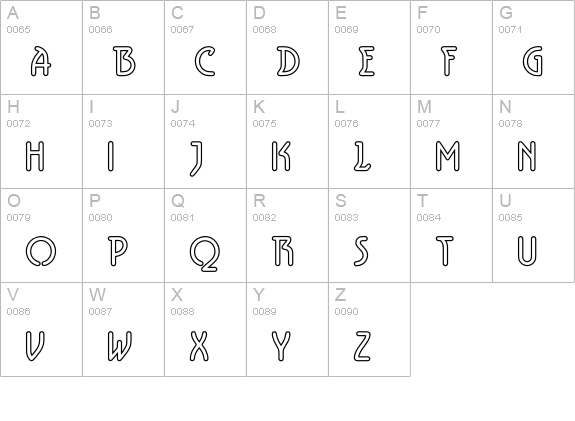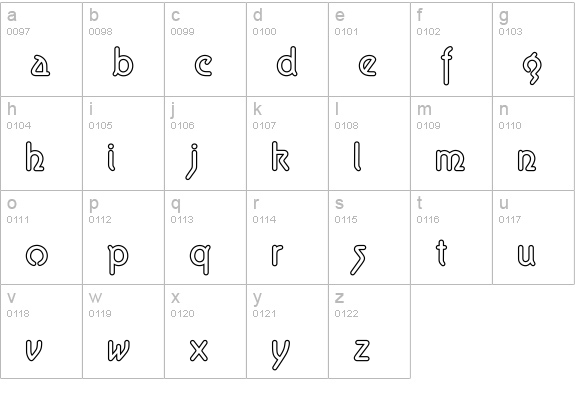
Aerolite Sky font is a captivating and versatile typeface that exudes a sense of elegance and modernity. Its sleek and rounded letterforms make it perfect for a wide range of design projects, from logos and branding to packaging and headlines. With its clean and balanced design, Aerolite Sky font is incredibly easy to read, ensuring that your message will be communicated effectively. Its unique blend of sophistication and simplicity makes it suitable for both professional and creative endeavors. What makes Aerolite Sky font even more enticing is that it is available for free download at FontsMarket.com. This means that you can unleash your creativity without any financial constraints. Whether you're a seasoned designer or just starting out, Aerolite Sky font is a valuable addition to your font library. The versatility of Aerolite Sky font shines through in its extensive character set, allowing you to effortlessly express your ideas in various languages and styles. Its smooth curves and precise detailing create a harmonious visual experience, making your designs stand out from the crowd. Whether you're designing a sleek website, a striking poster, or an eye-catching advertisement, Aerolite Sky font will elevate your project to new heights. Its contemporary aesthetic and clean lines give it a timeless appeal that will remain relevant for years to come. Download Aerolite Sky font for free at FontsMarket.com and experience the freedom to create stunning designs that leave a lasting impression. With its effortless elegance and versatility, Aerolite Sky font is sure to become your go-to choice for all your typographic needs.